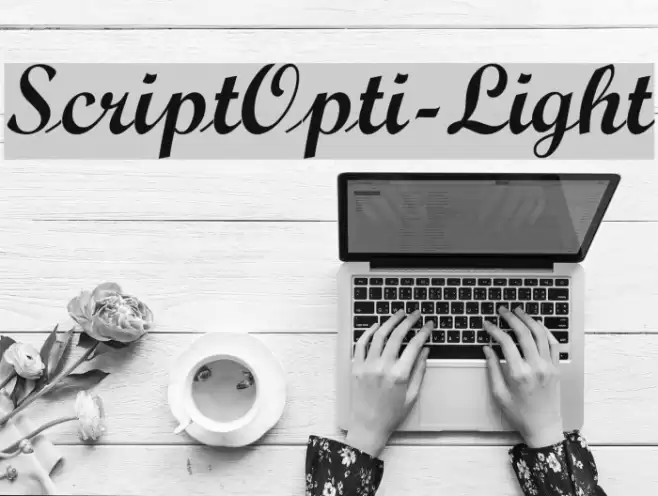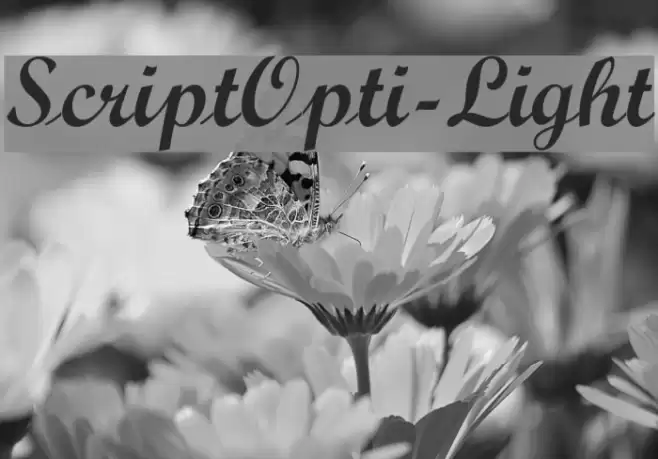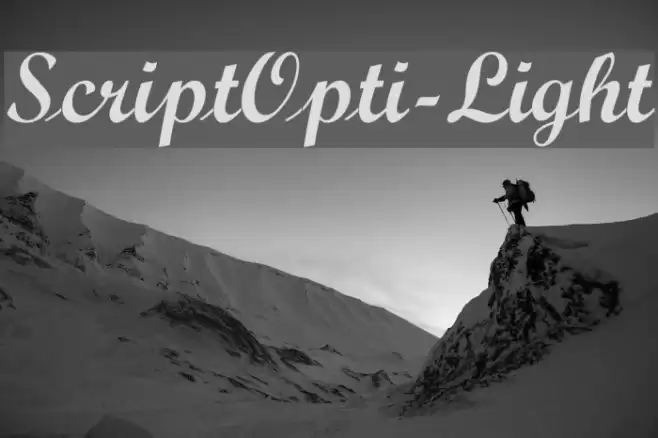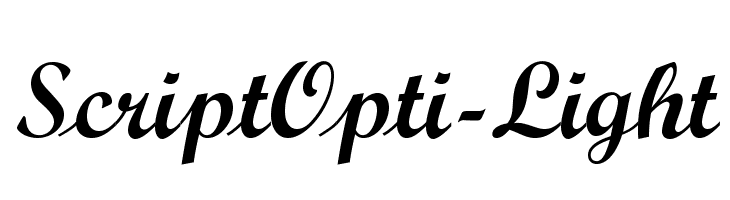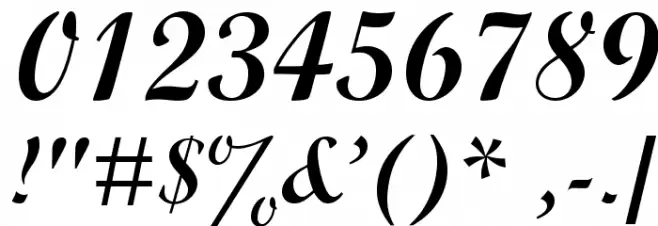
ScriptOpti-Light Font
ScriptOpti-Light Description
This elegant script font features flowing, cursive letterforms with a classic and sophisticated appearance. The uppercase letters are ornate and slightly slanted, while the lowercase letters maintain a smooth, connected style. The numerals are bold and distinct, complementing the overall aesthetic. Special characters are designed with the same fluidity, enhancing the font's cohesive look. The strokes vary in thickness, providing a medium contrast that adds to its readability and visual appeal.
An elegant script font with flowing, cursive letterforms and medium contrast from Uncategorized fonts.
- Proposed Projects: Ideal for wedding invitations, elegant branding, greeting cards, and upscale packaging.
- Overall Style: Classic
- Use Case: Logos, Invitations, Decorative text